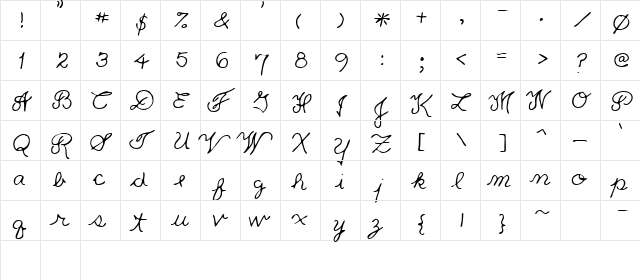
Price Regular
Design Context for Price Typeface
Price is a composed and adaptable typeface that performs quietly and consistently across a wide range of design contexts.